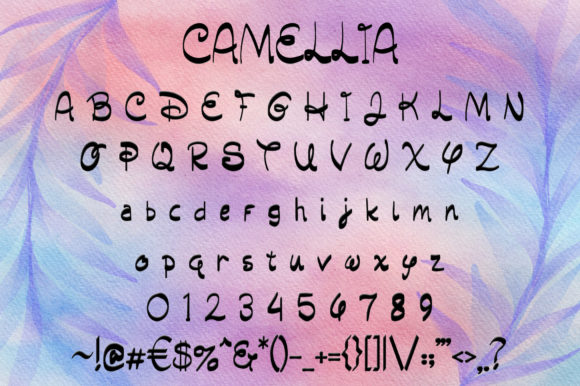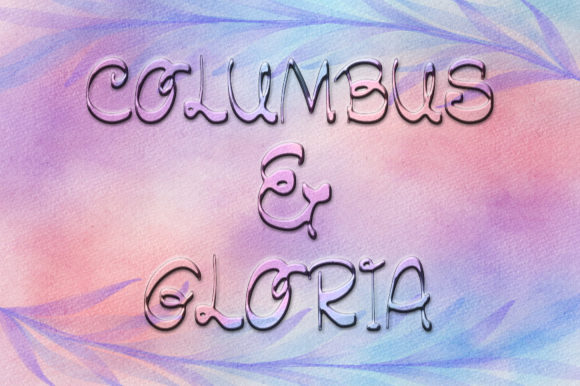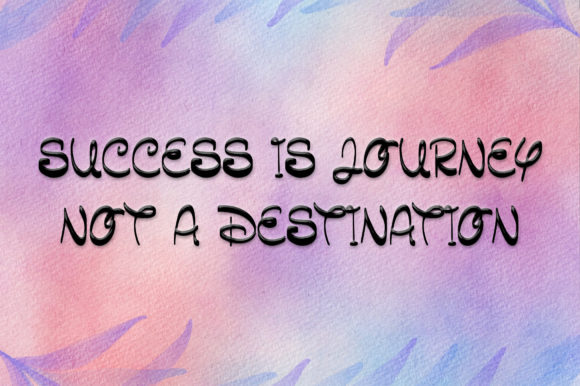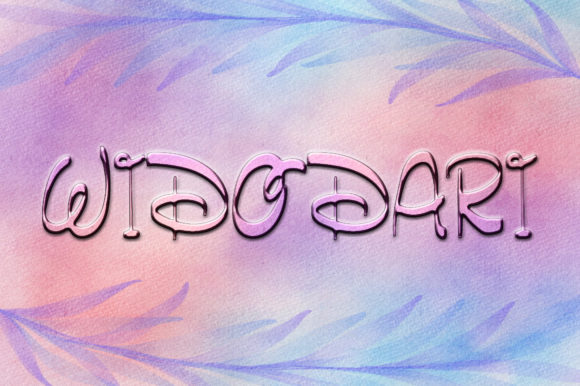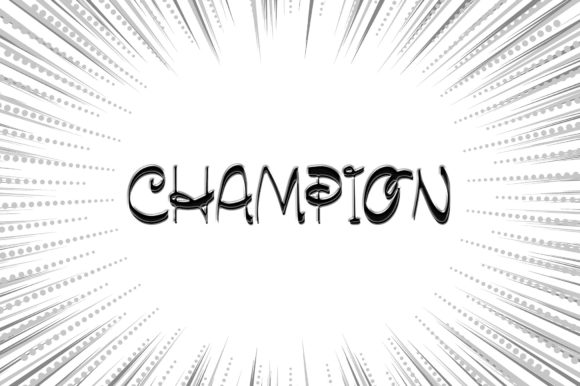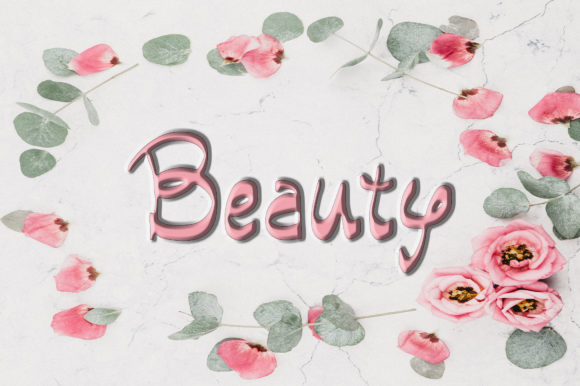
The Ultimate Guide to Camellia Font: Elevate Your Designs with Elegance
I’ll never forget the time I was working on a wedding invitation project, and my client asked for a font that was “chic, whimsical, and elegant.” I scoured the internet, tried countless fonts, but nothing seemed quite right. That was until I stumbled upon Camellia Font. ✨ It was love at first sight! The ravishing style of Camellia instantly captured my attention, and I knew I had found the perfect fit for my project.
An Honest Review of Camellia Font
What I Love About Camellia Font
- 💕 Chic and whimsical handwritten style that’s perfect for creative projects
- 🎨 Beautifully crafted with attention to detail, making it perfect for designs that require a touch of elegance
- 🌈 Versatile and can be used for a wide range of projects, from wedding invitations to social media posts
While Camellia Font is an amazing addition to any design project, there are a few things to keep in mind: 🤔
- ⚠️ Some characters may not work well in all contexts, so be sure to test the font thoroughly
- ⚠️ May not be suitable for very long blocks of text, as it can be a bit ornate
The Story Behind Camellia Font
Camellia Font was designed with love and care by a talented font designer who wanted to create a font that was both elegant and whimsical. The designer drew inspiration from traditional handwritten fonts, but with a modern twist. The result is a font that’s perfect for designers, crafters, and creative hobbyists who want to add a touch of elegance to their projects.
| What is Camellia Font? | Camellia Font is a chic and whimsical handwritten font perfect for creative projects. |